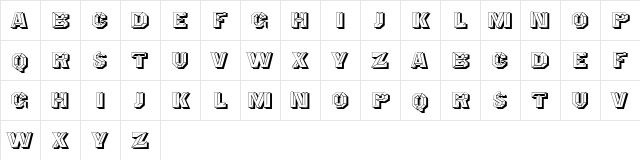
Photographer 3D Regular Free Font
Photographer 3D Regular
Design Context for Photographer 3D
Photographer 3D is a composed and adaptable typeface that performs quietly and consistently across a wide range of design contexts.